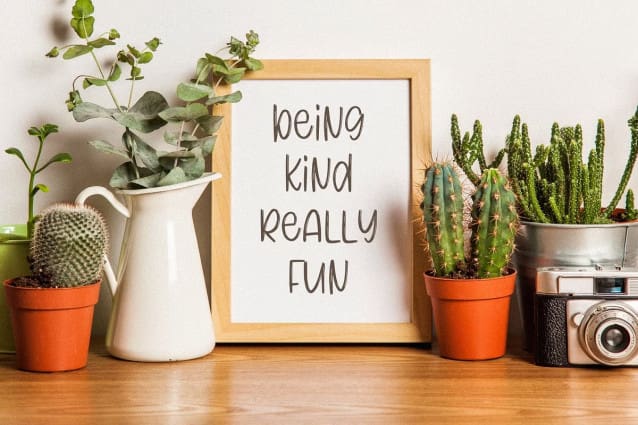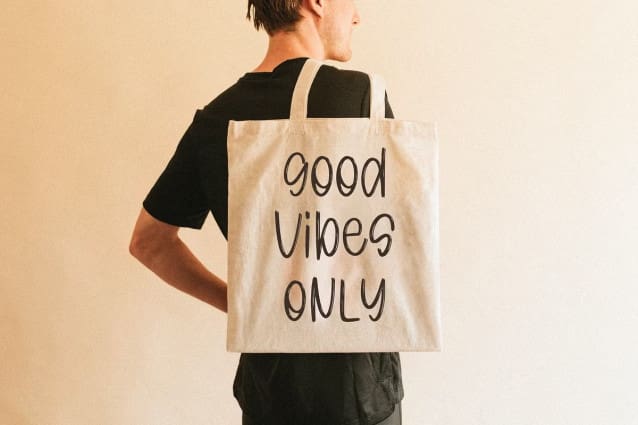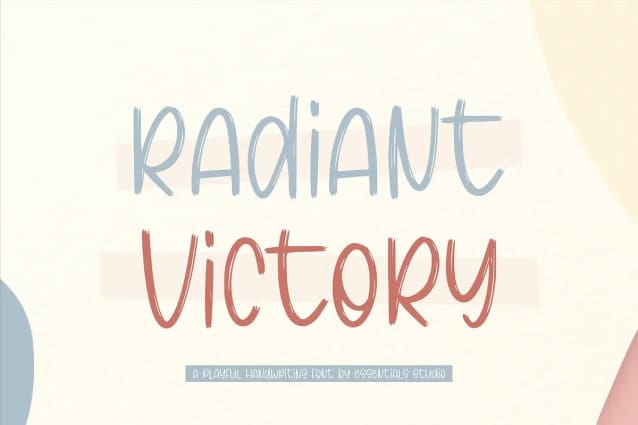
Radiant Victory Font
Radiant Victory Font is perfect for product packaging, branding project, megazine, social media, wedding, or just used to express words above the background.